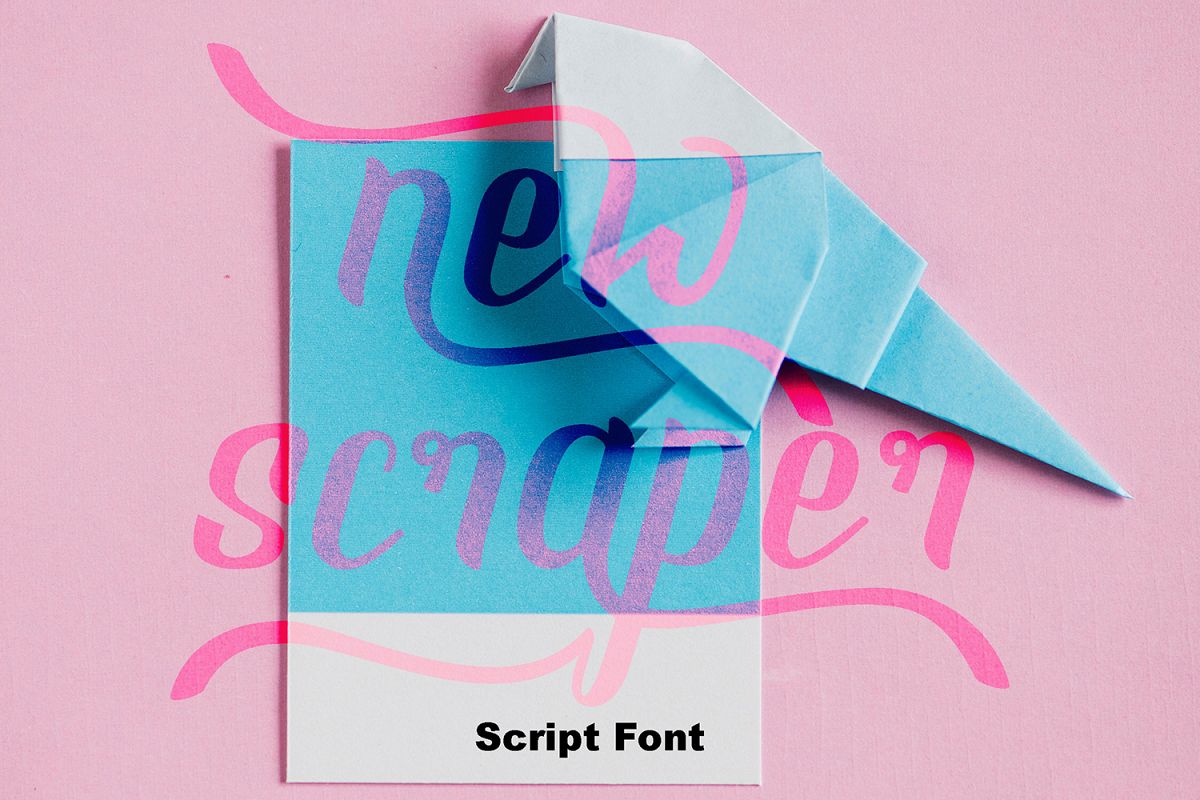
NEW SCRAPER - Script Font
If you think that swash is very important factor to beautify a word or sentence by using a script font, then this font is very necessary to added to your font collections. Because this font is equipped with stylistic alternates with beautiful swash arches. Actually this is the first font that created from Peni Creative which is later updated. :)